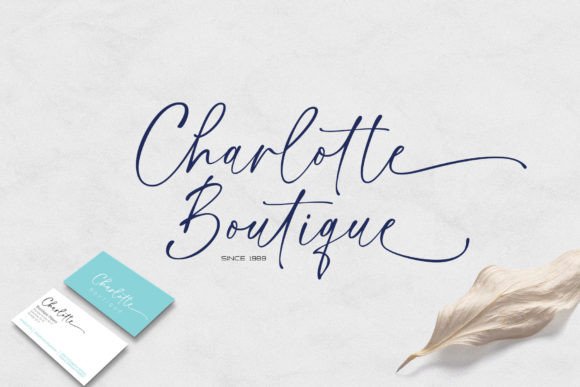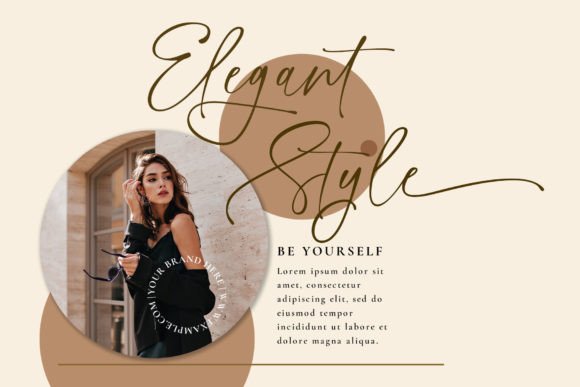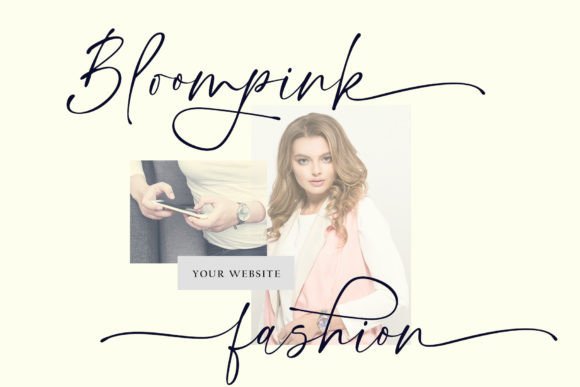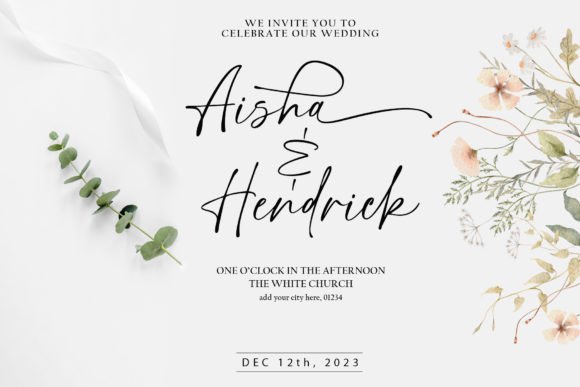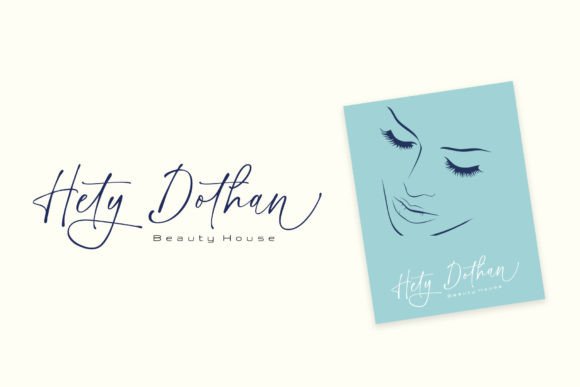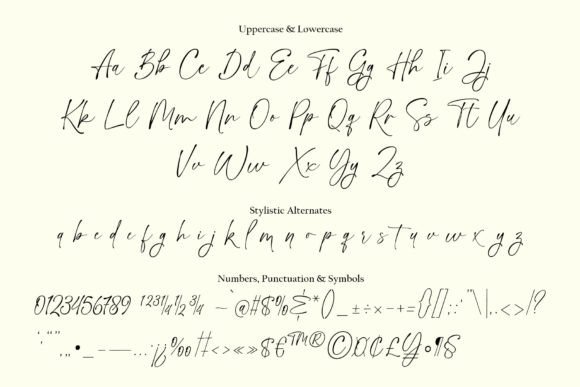
The Perfect Script for Your Next Masterpiece
There’s nothing quite like the thrill of bringing an idea to life. The blank page, the endless possibilities, the rush of creativity as the words begin to flow. For many designers, this moment is what it’s all about – the chance to craft something truly special, something that will leave a lasting impression on others.
That’s where the Handsome Lasting Font comes in – a dazzling script font that’s perfectly suited for making a statement. With its neat, detailed design, this font is the perfect addition to any font library. Whether you’re working on a wedding invitation, a company logo, or a book cover, the Handsome Lasting Font has the potential to elevate your creation to new heights.
Handsome Lasting Font Key Features
- Character Set: This font includes a wide range of characters, including Latin, Cyrillic, and Greek alphabets, as well as punctuation marks and symbols.
- Unique Characteristics: This font features a classic, elegant design with subtle flair and sophistication, making it ideal for use in high-end branding, advertising, and editorial projects.
Handsomes Lasting Font Review
I recently had the chance to work with the Handsome Lasting Font, and I must say it’s a font that has left a lasting impression (pun intended). ✨
Here are some of its strengths:
- Unique and stylish design: Handsome Lasting Font has a distinct aesthetic that’s both elegant and sophisticated.
- Wide range of applications: This font can be used in a variety of contexts, from formal documents to creative projects.
- High-quality vector graphics: The font is built with high-quality vector graphics, making it perfect for scaling and printing.
- Limited language support: Handsome Lasting Font may not support certain languages, which could be a problem for international projects.
- Not ideal for very small text: Due to its complex design, this font may not be the best choice for very small text sizes.
- May require adjustments for certain operating systems: I noticed that the font rendered slightly differently on Windows and macOS.
Overall, I’m impressed with the Handsome Lasting Font. While it may have some limitations, its unique design and high-quality vector graphics make it a valuable addition to any designer’s toolkit.
Getting the Most Out of Handsome Lasting Font
Use bold and italic styles to add emphasis and create visual interest.
Experiment with different font sizes to create a balanced composition.
Combine Handsome Lasting Font with other fonts to create a unique and visually appealing design.
Use Handsome Lasting Font for:
Brand logos and marketing materials
Business cards and letterheads
Any design project where a elegant, sophisticated font is desired.
Alternatives to Handsome Lasting Font for Designers
Playfair Display is a luxurious, elegant serif font ideal for high-end designs, such as luxury brands, wedding invitations, and fine art projects. Its intricate details and classic feel make it a great alternative to Handsome Lasting Font for designers seeking sophistication and refinement.
Comparison: While Handsome Lasting Font is more modern and versatile, Playfair Display excels in its classic, luxurious aesthetic, making it perfect for specific high-end projects.
Pacifico is a beautiful, modern script font perfect for creative, emotive designs, such as food blogs, fashion brands, and lifestyle magazines. Its flowing lines and soft curves make it a great choice for designers seeking a more relaxed, approachable feel.